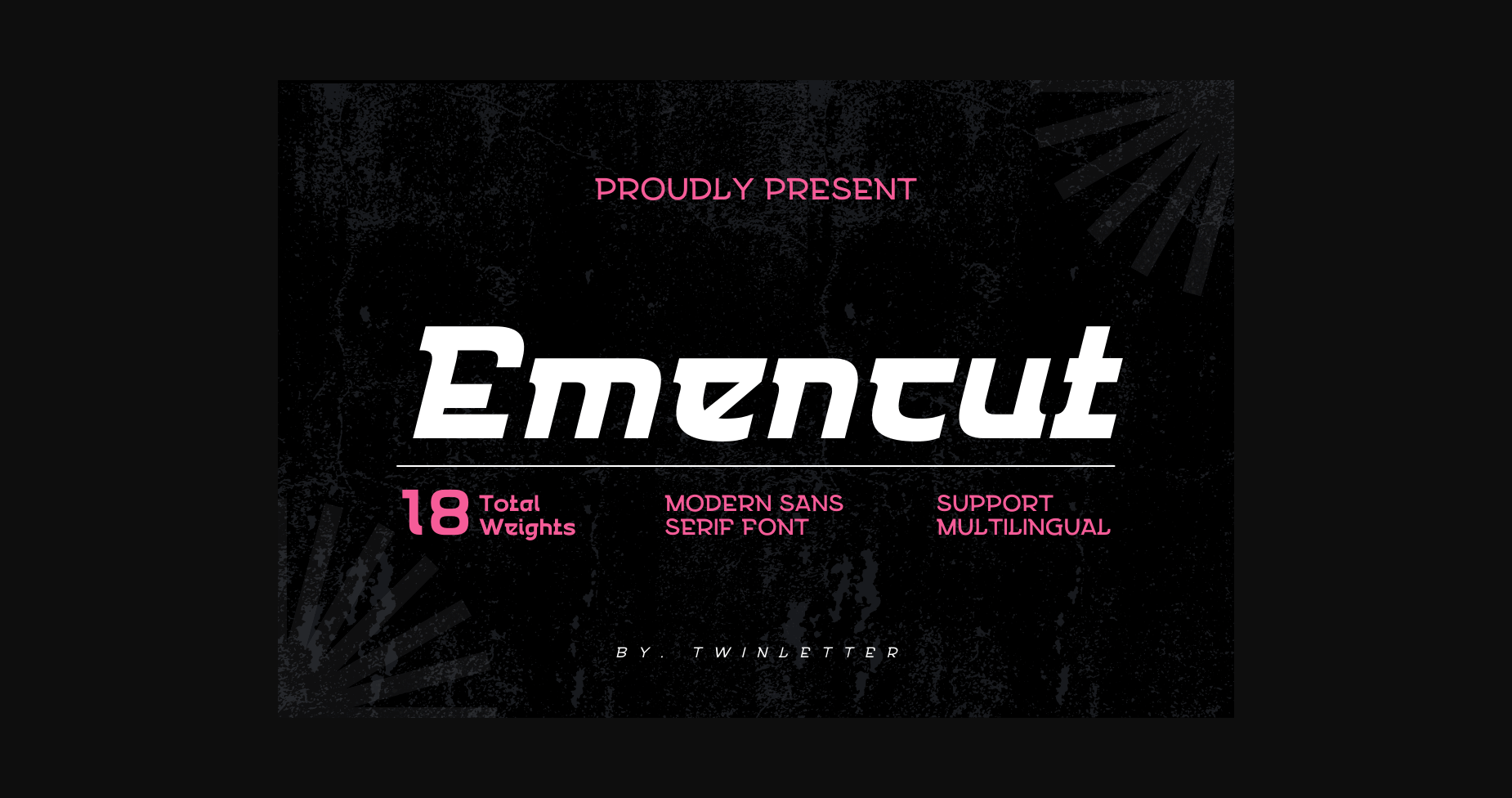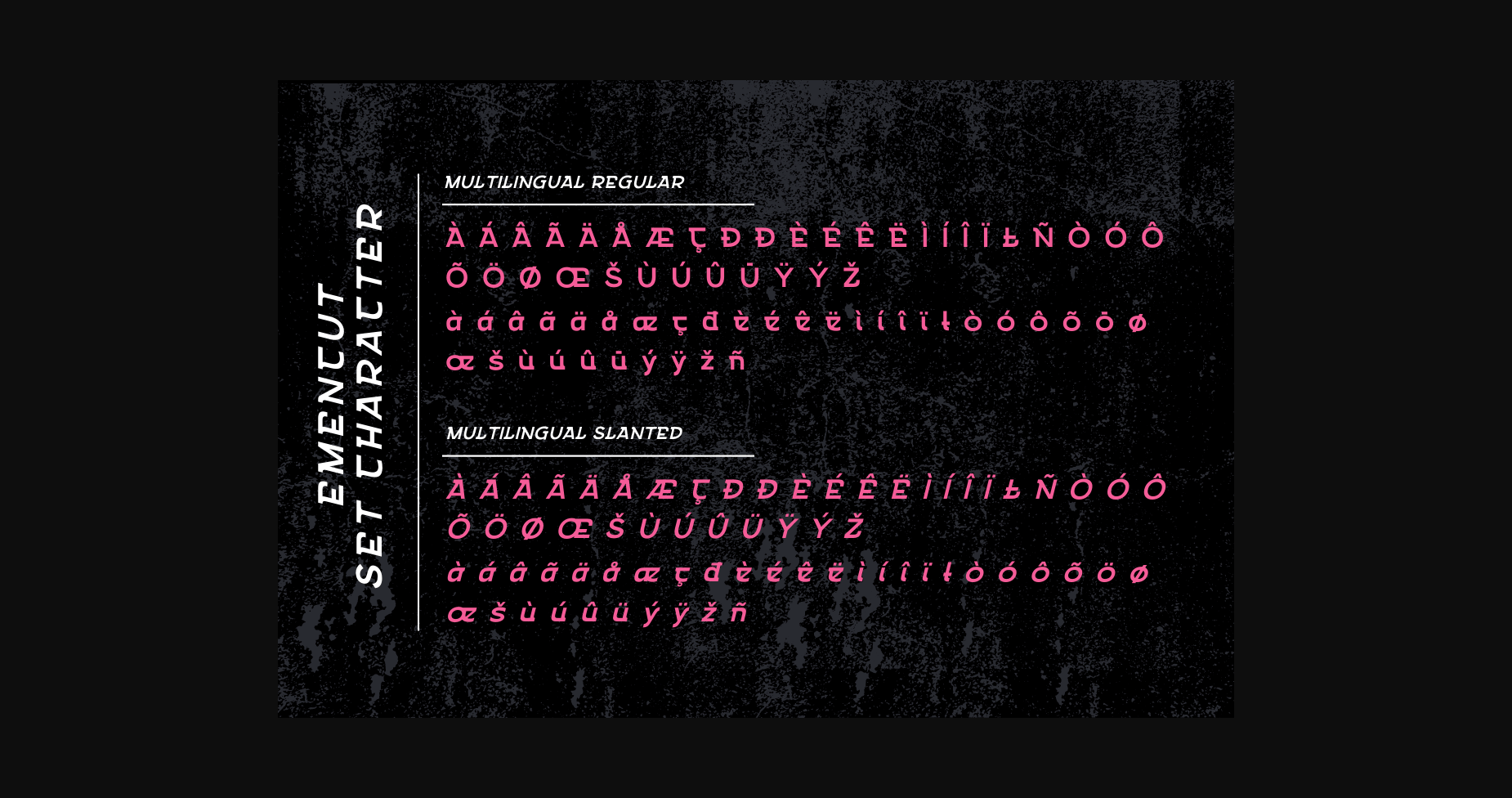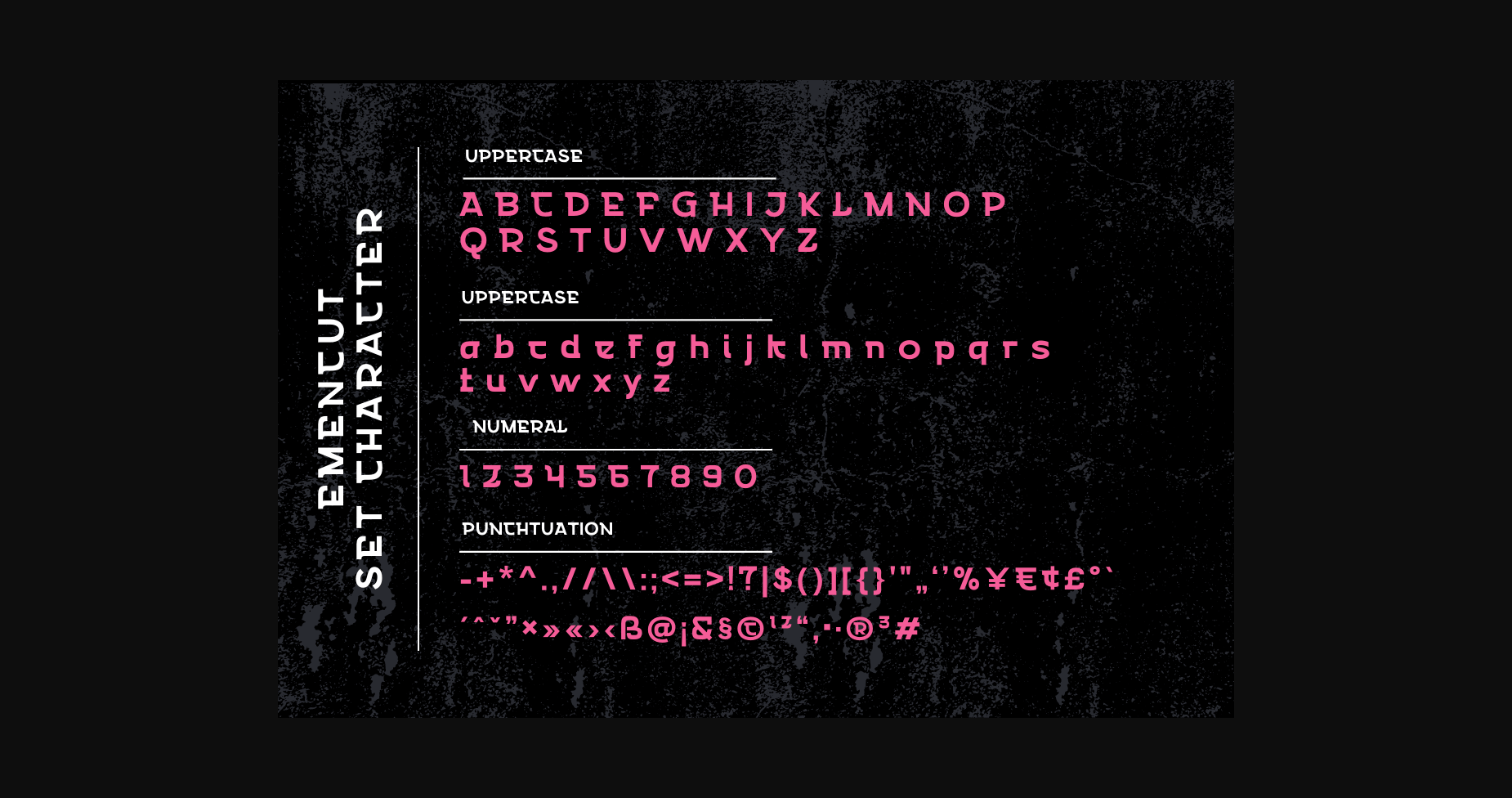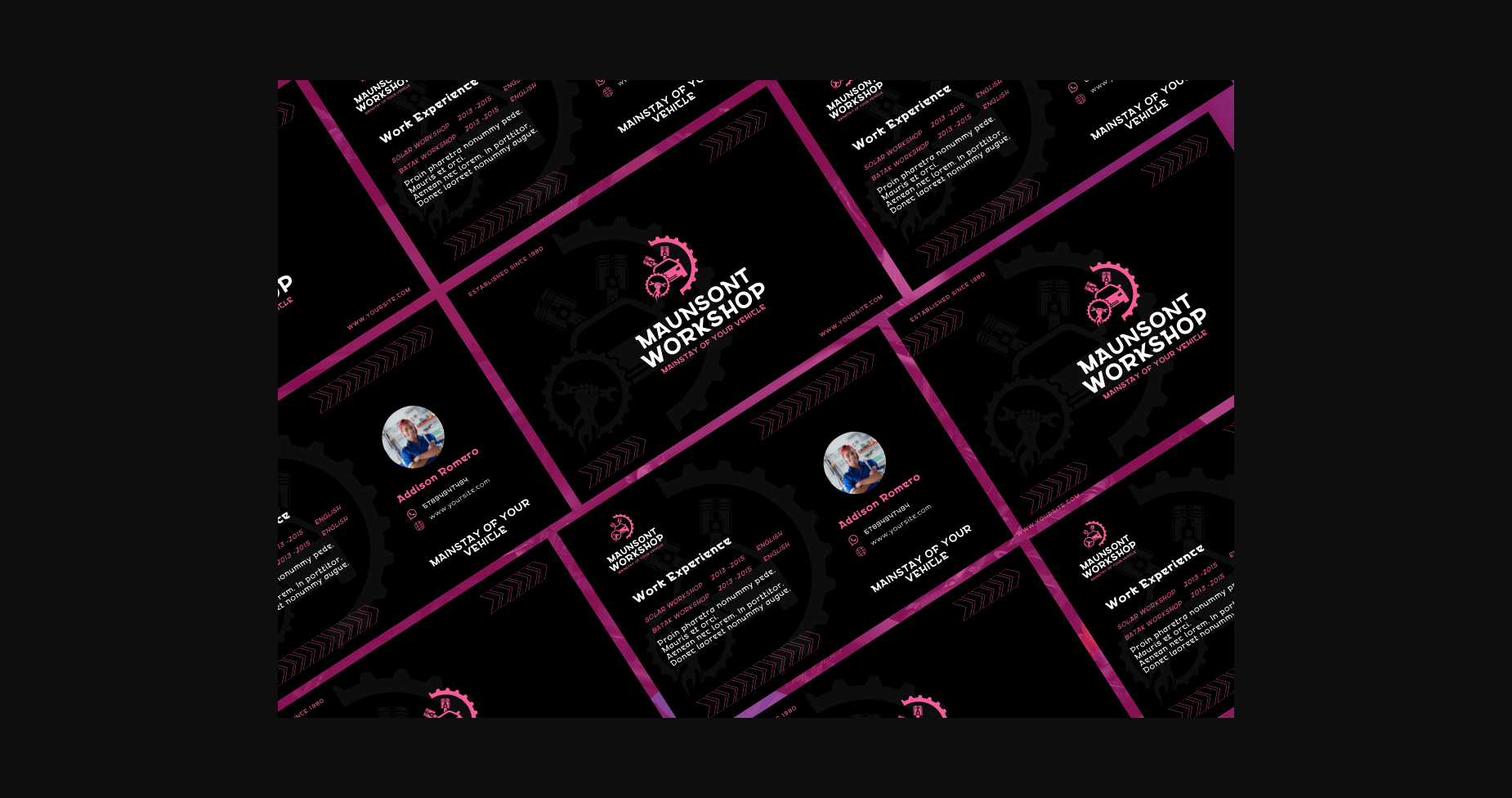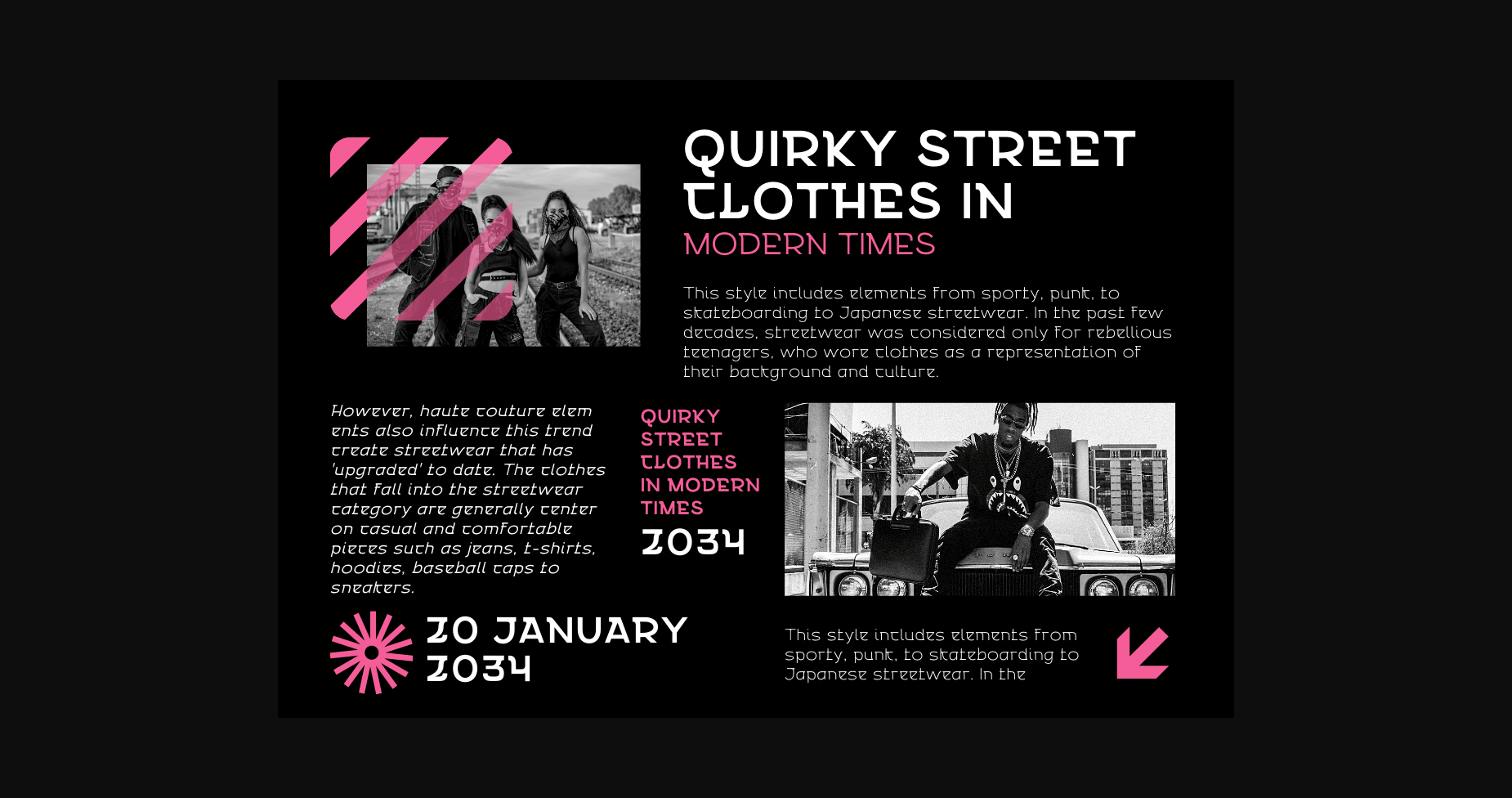
About Emencut Font
Emencut sans serif, and everything in between. Use this typeface in your design or business projects,
Your various design projects will be perfect and extraordinary if you use this font because this font is equipped with a font family, both for titles and subtitles and sentence text, start using our fonts for your extraordinary projects.